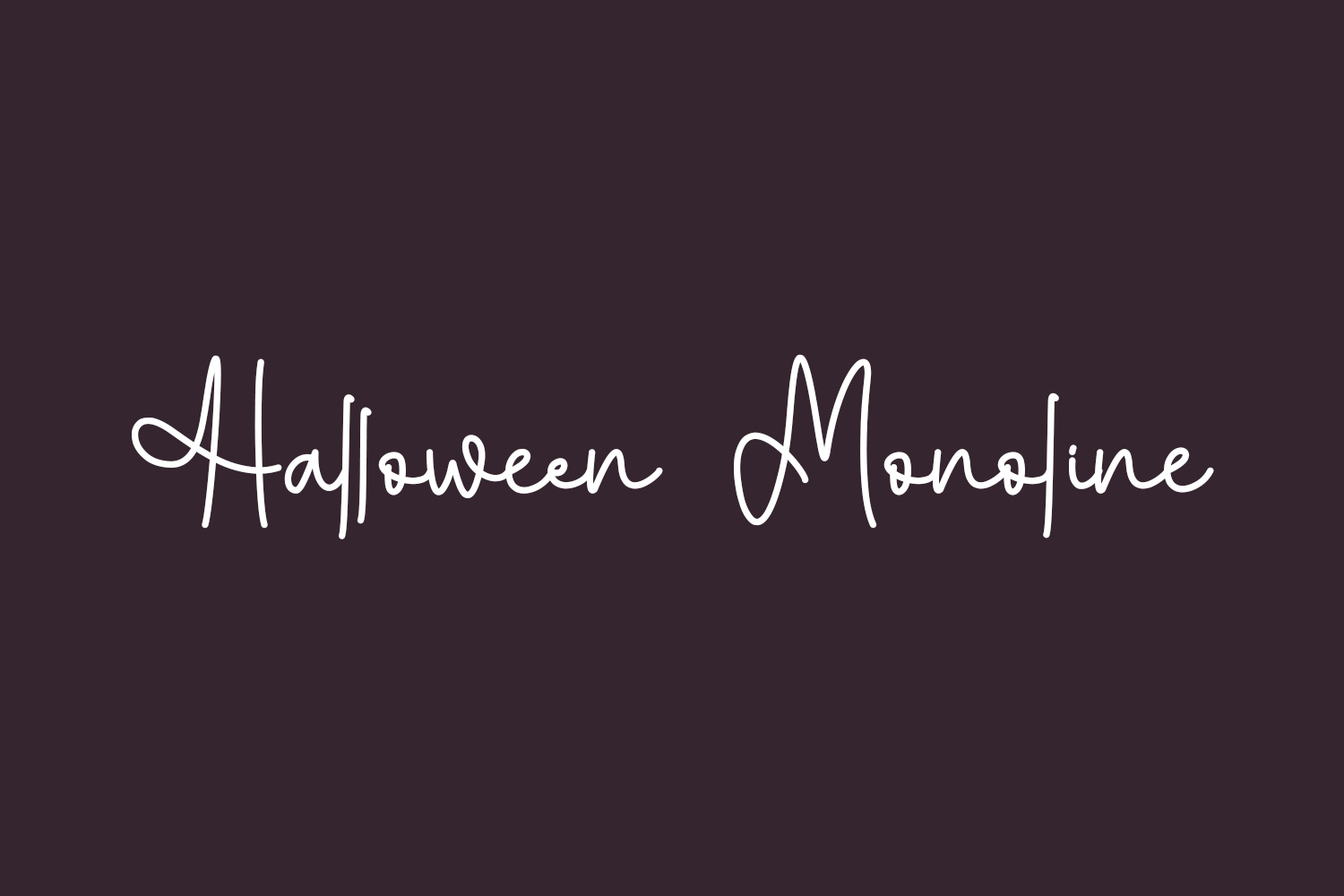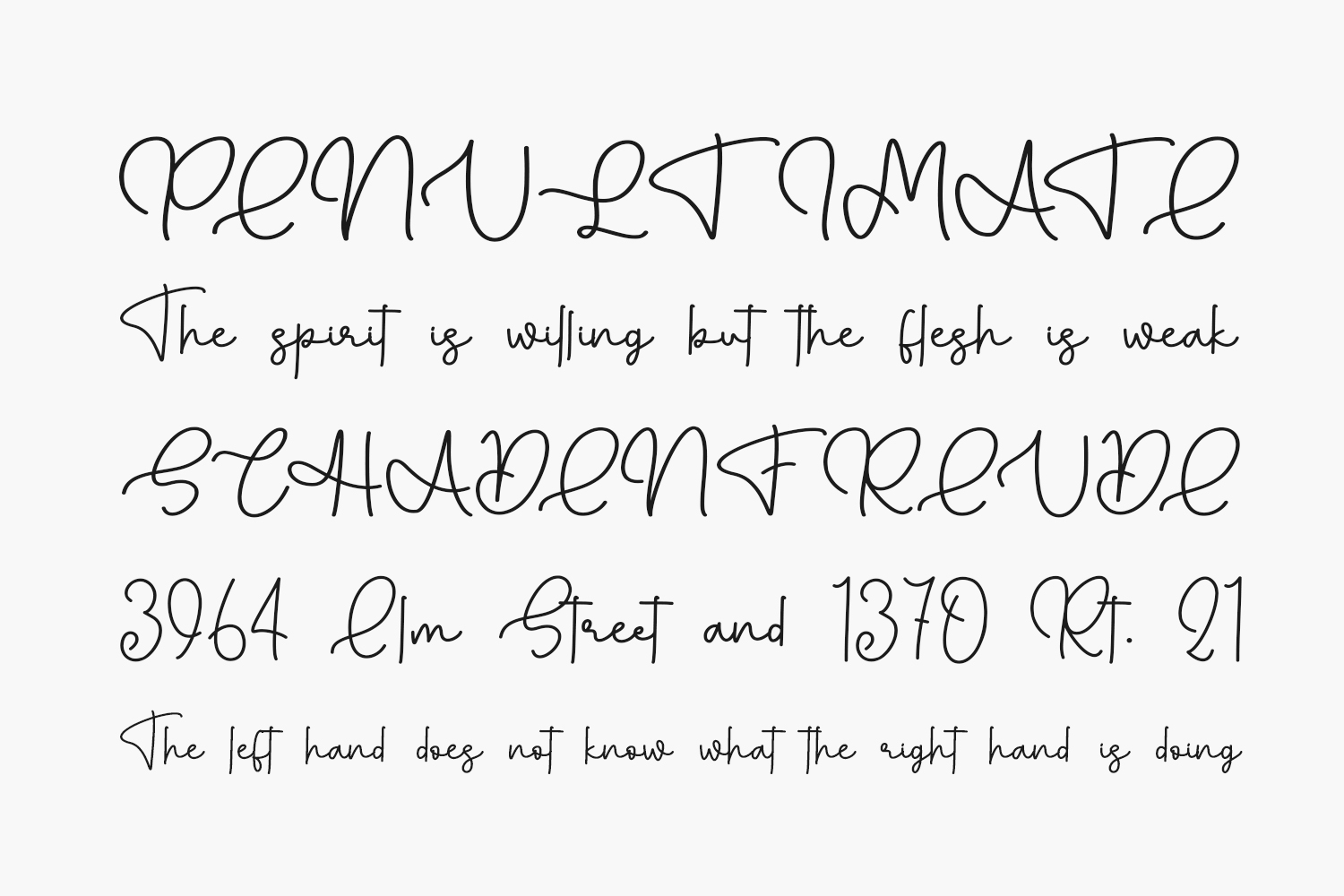
Halloween Monoline Free Font is a beautiful, well balanced, and vintage styled script font. It is defined by smooth curves and is perfect for fashion branding or editorial designs. Add it confidently to your projects, and you will love the results. Halloween Monoline Free Font was designed by Letterafa Studio and is free for personal use only. Please purchase the full version for commercial use.